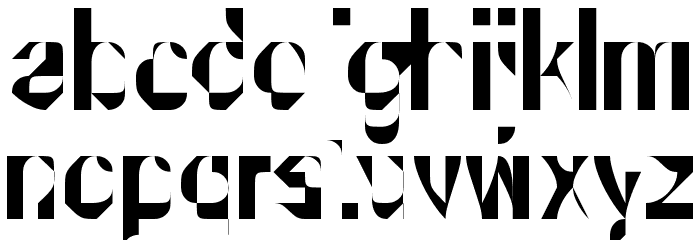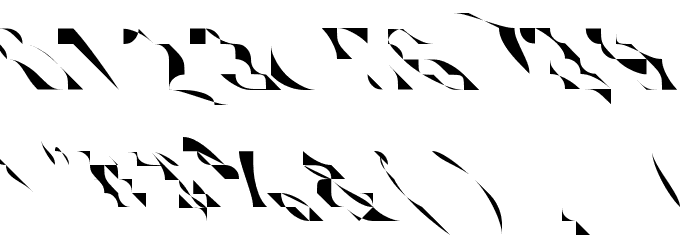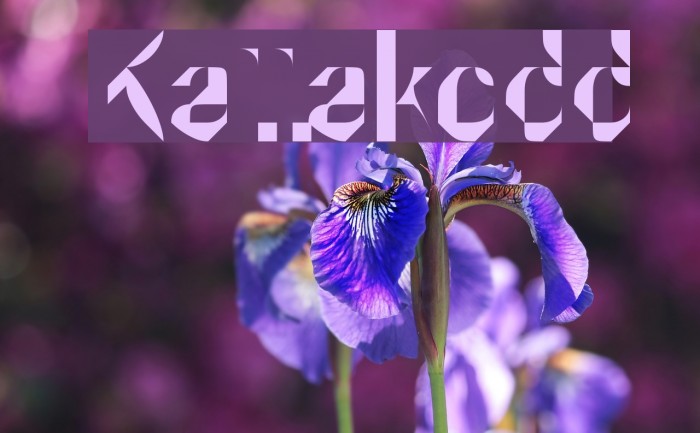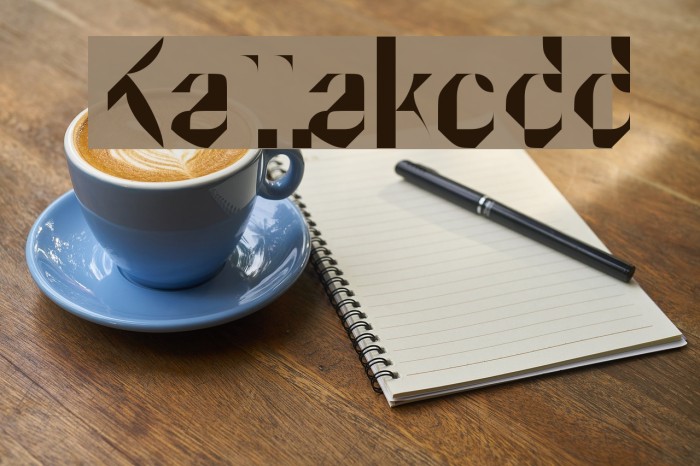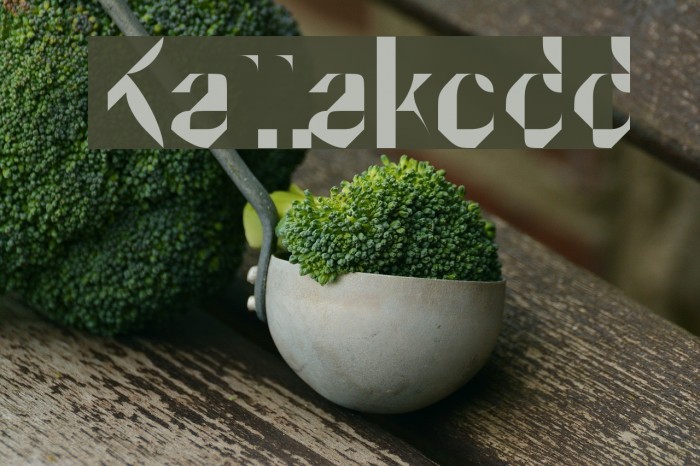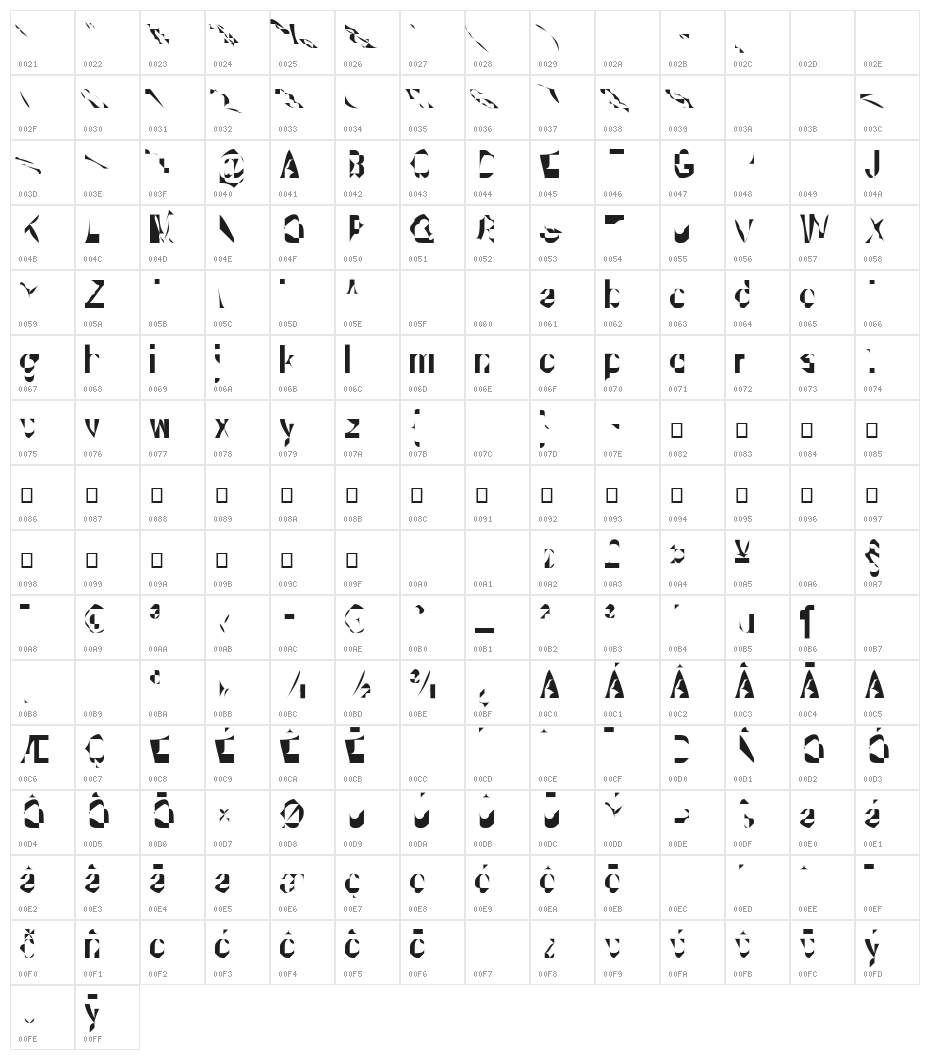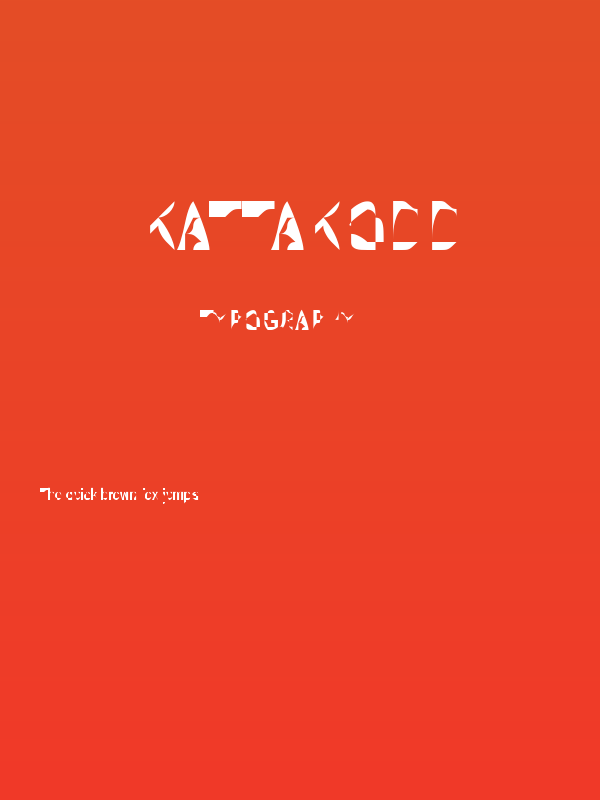
Kattakodd Font
This font features a highly decorative and abstract style, characterized by its fragmented and geometric letterforms. The characters are composed of bold, angular shapes with significant portions removed, creating a dynamic and visually striking appearance. The uppercase and lowercase letters maintain a consistent design approach, with each character exhibiting a unique pattern of cutouts and angles. The numbers and special characters follow the same stylistic theme, ensuring uniformity across the entire typeface. This font's unconventional design makes it ideal for creative and artistic projects where a bold statement is desired.
A bold, abstract font with fragmented, geometric letterforms.
- Proposed Projects: Ideal for artistic posters, album covers, modern art installations, and branding for creative industries.